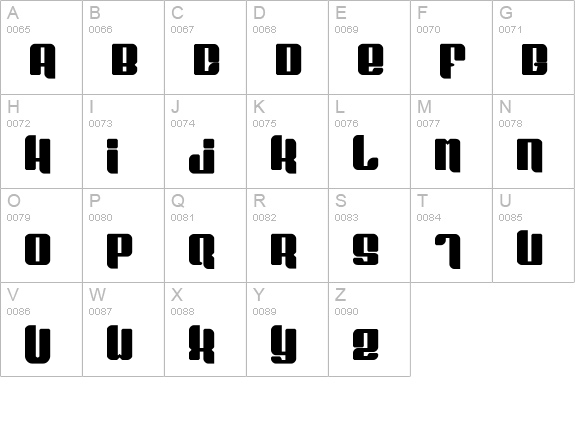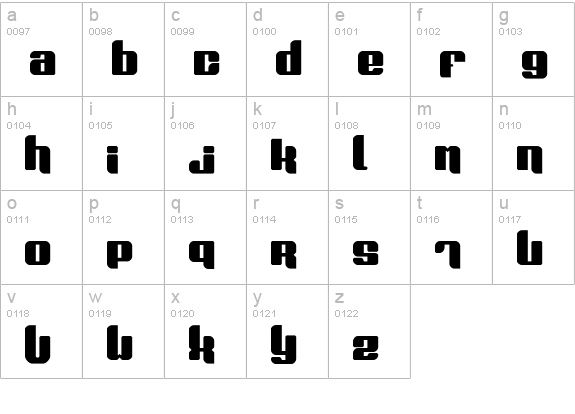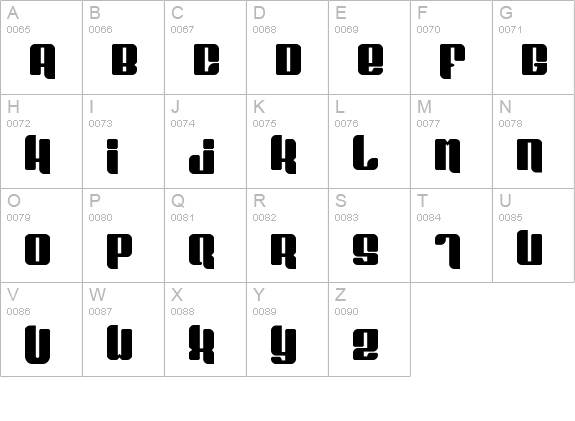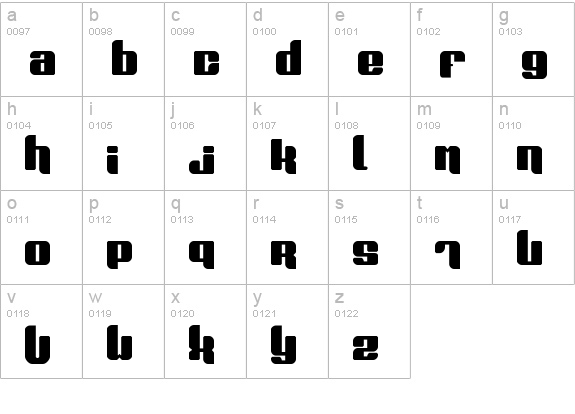
Plasmafuzion Font Details
Introducing Plasmafuzion, a striking and captivating font that effortlessly blends modernity with a touch of futuristic elegance. This font is a true representation of the power and energy that lies within its carefully crafted letterforms. Its sleek design and bold strokes make it perfect for a wide range of design projects, from eye-catching headlines to attention-grabbing logos. Plasmafuzion is a font that exudes confidence and style. Its unique combination of sharp edges and smooth curves creates a captivating visual experience, leaving a lasting impression on any viewer. Each character is meticulously detailed, with an attention to detail that showcases the skill and artistry of its designer. But what sets Plasmafuzion apart is not just its stunning aesthetics, but also its versatility. Whether you're working on a branding project, a website design, or even a poster for a sci-fi movie, this font will effortlessly adapt to your needs, bringing your vision to life with its bold presence. And the best part? Plasmafuzion is available for free! That's right, you can freely download this font at FontsMarket.com, where it awaits to be unleashed on your creative endeavors. Don't miss out on the opportunity to add this exceptional font to your design arsenal without spending a dime. So, why settle for ordinary when you can embrace the extraordinary? With Plasmafuzion, you have the power to transform your designs into captivating masterpieces that demand attention. Download this remarkable font today and embark on a journey of limitless creativity.